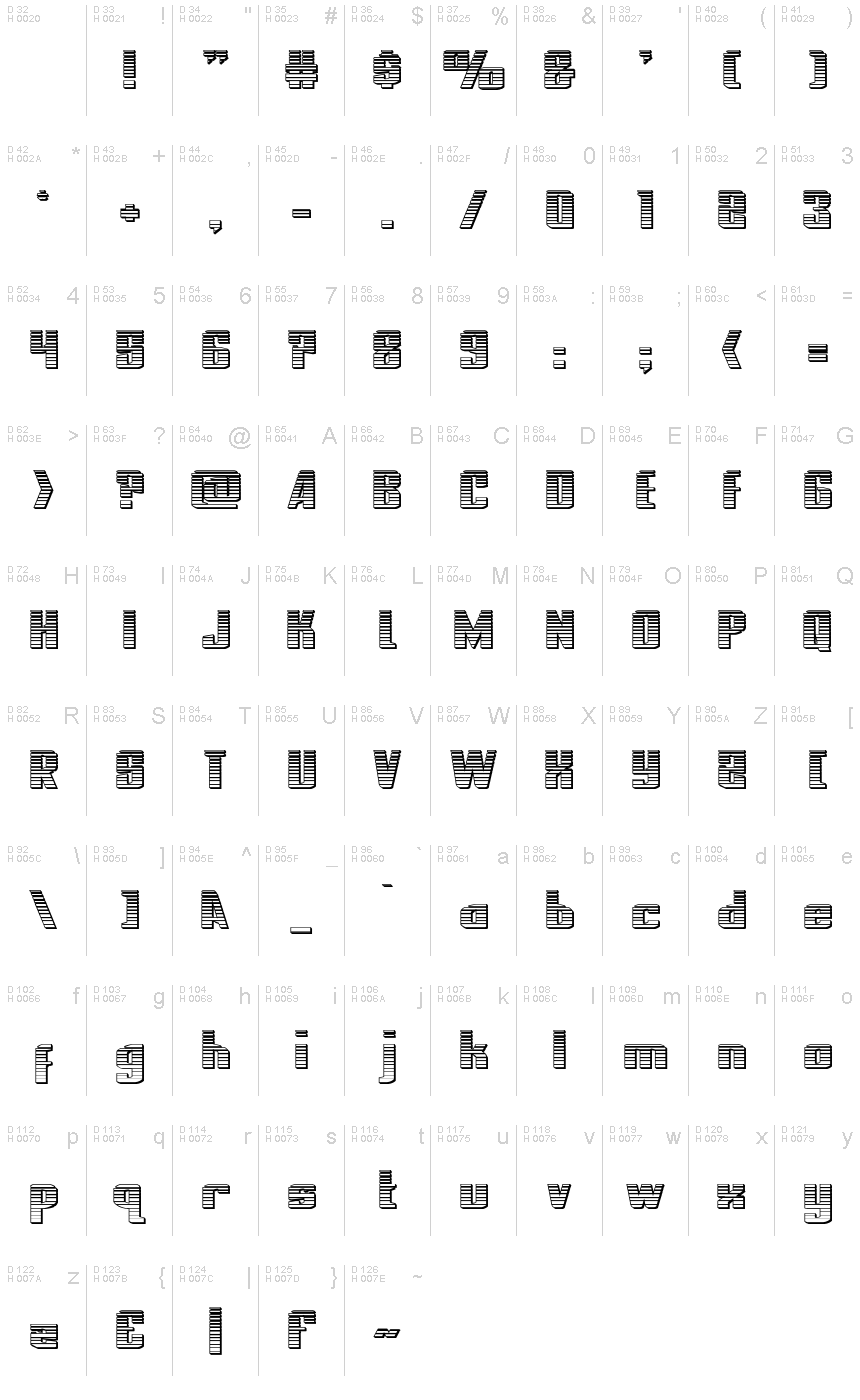
National Express Chrome
National Express Chrome is a bold and dynamic display font that exudes a distinct technological flair. Designed by Daniel Zadorozny, this font captivates with its angular, chromatic letterforms that evoke a sense of modern industrial chic. The strong, geometric shapes and clean lines give this font a striking, attention-grabbing presence, making it an excellent choice for branding, headlines, and other design elements where impact and visual interest are paramount.
National Express Chrome's techno-inspired aesthetic lends itself well to a variety of applications, from sleek, futuristic product packaging to dynamic event posters and digital interfaces. Its versatility and eye-catching style make it a versatile tool in the designer's arsenal, suitable for projects that demand a bold, cutting-edge aesthetic.